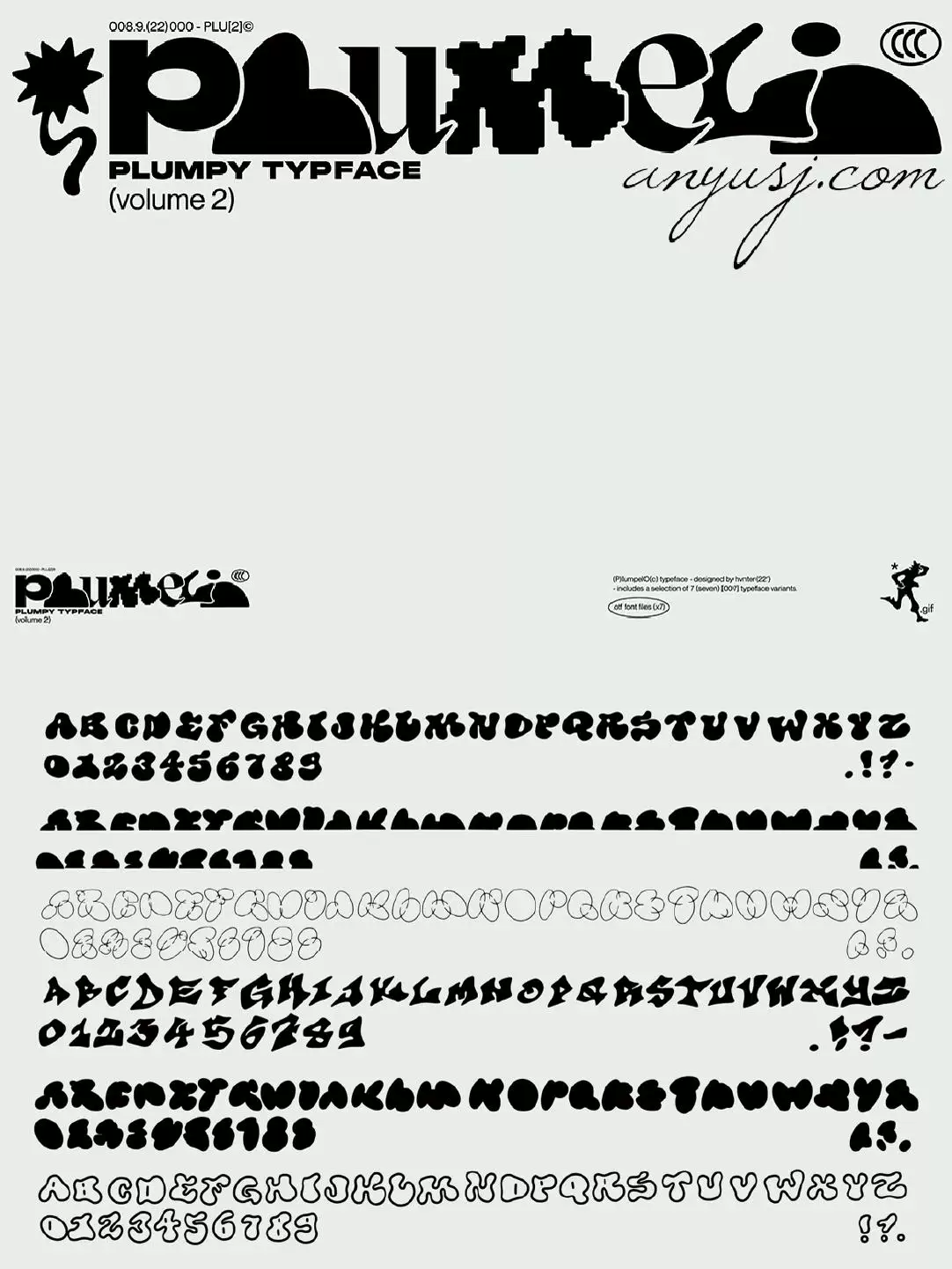
7 Y2K Fun Retro Bubble Graffiti Hand-painted Abstract – Font
7 Y2K Fun Retro Bubble Graffiti Hand-painted Abstract Decorative Handwritten Sans-serif Western Font Design Set. A ready-to-use digital design resource for creative projects, presentations, branding and content production.
7 Y2K Fun Retro Bubble Graffiti Hand-painted Abstract Decorative Handwritten Sans-serif Western Font Design Set